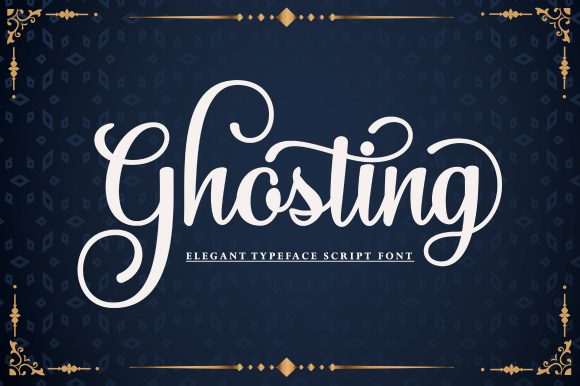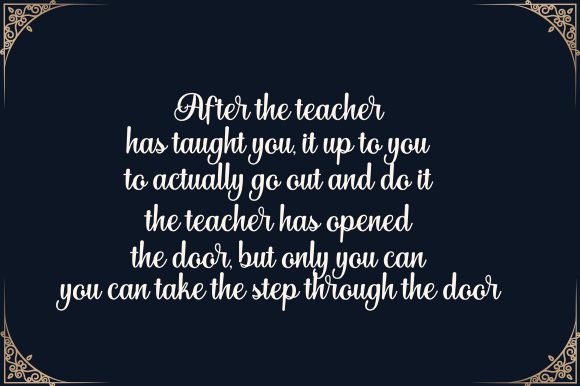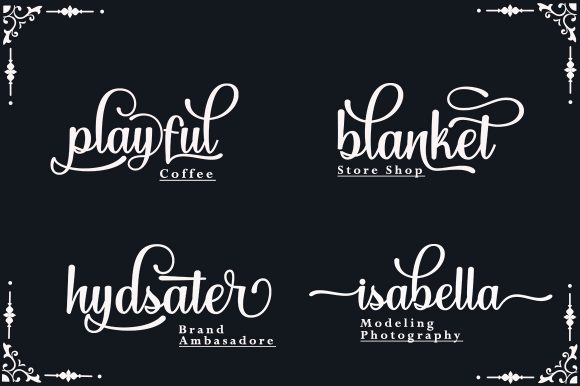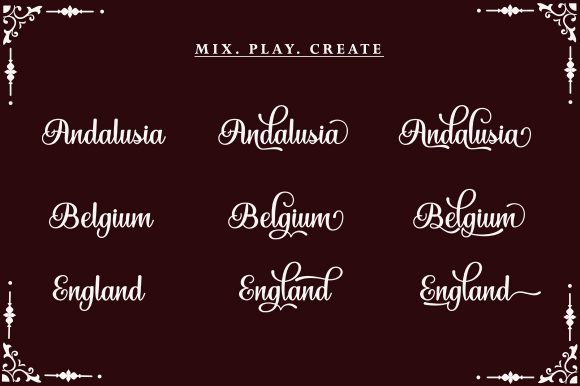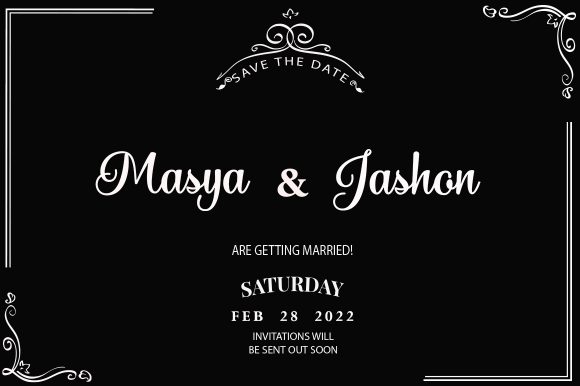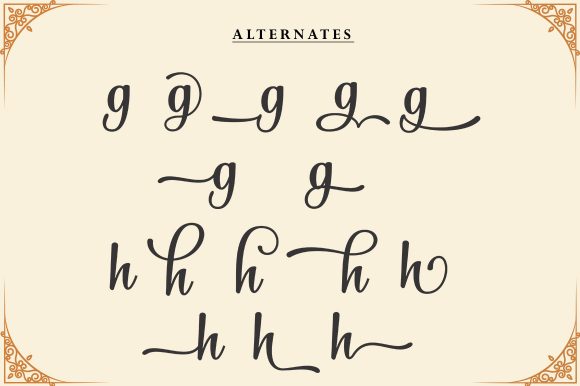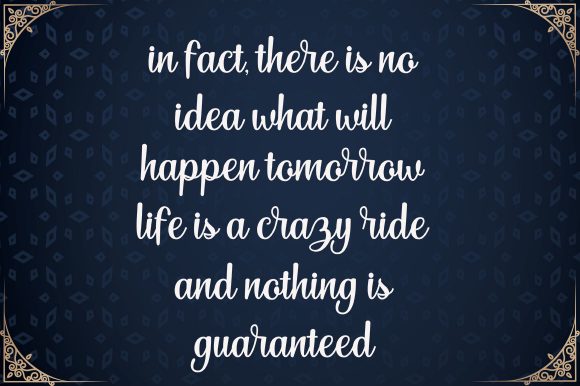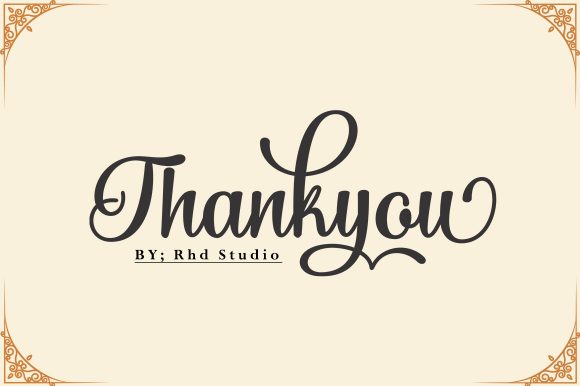
Ghosting Font
About Ghosting Font
Ghosting is an assertive and distinct script font. Expertly designed to make your creation look out of this world, this font will look gorgeous on a variety of ideas. This font is PUA encoded which means you can access all of the glyphs and swashes with ease!